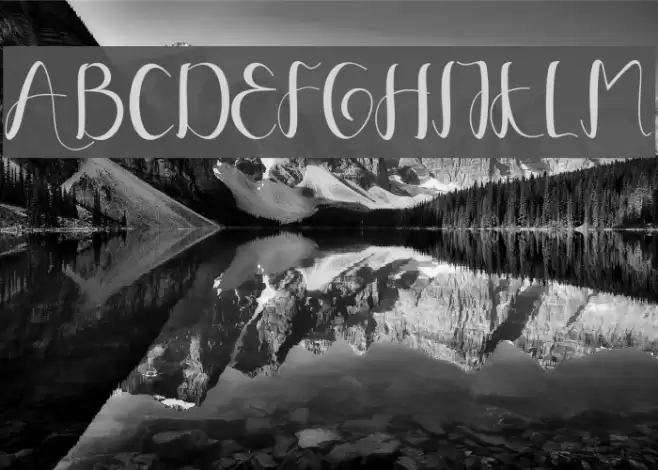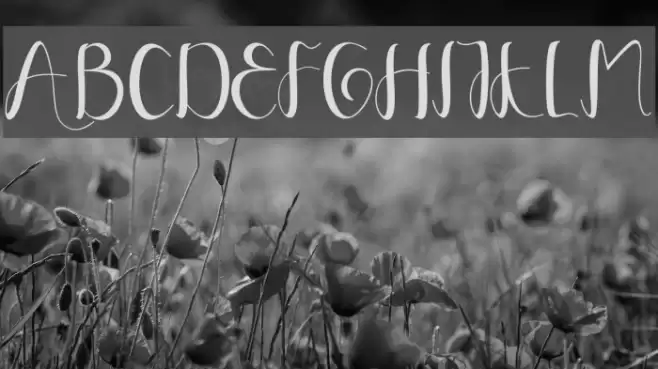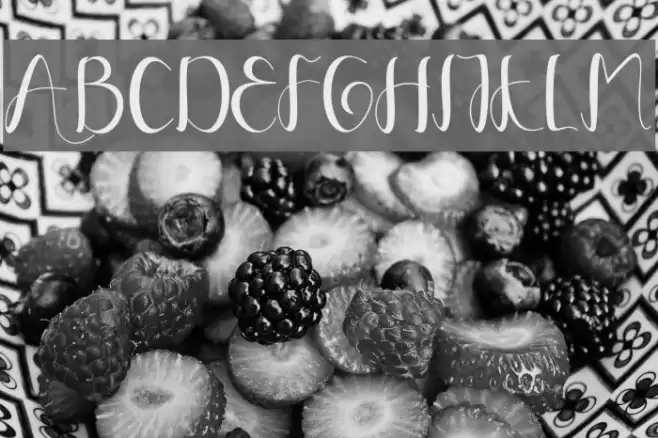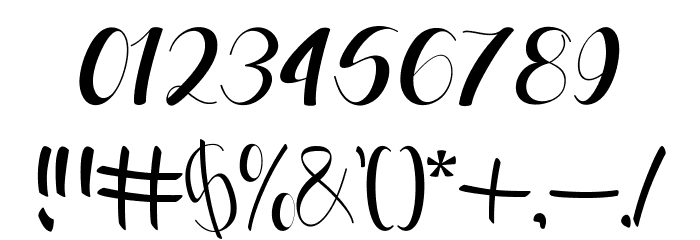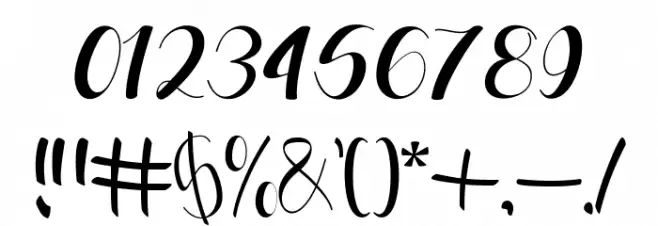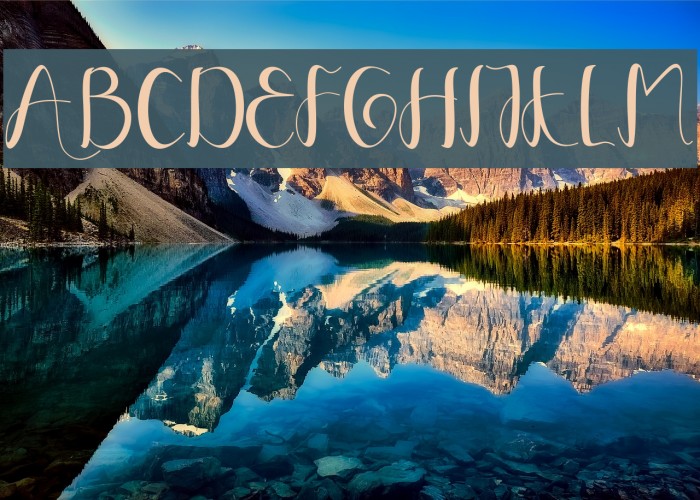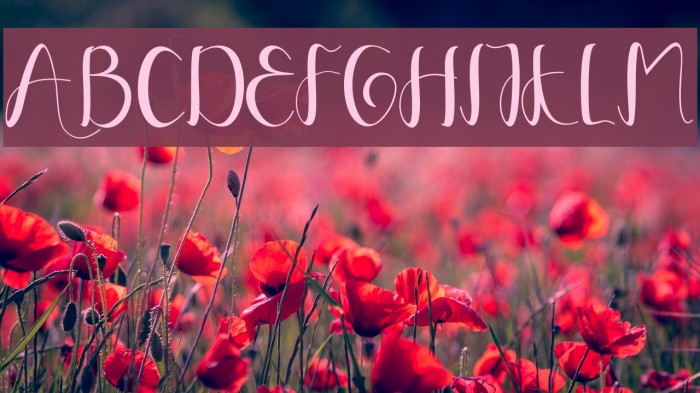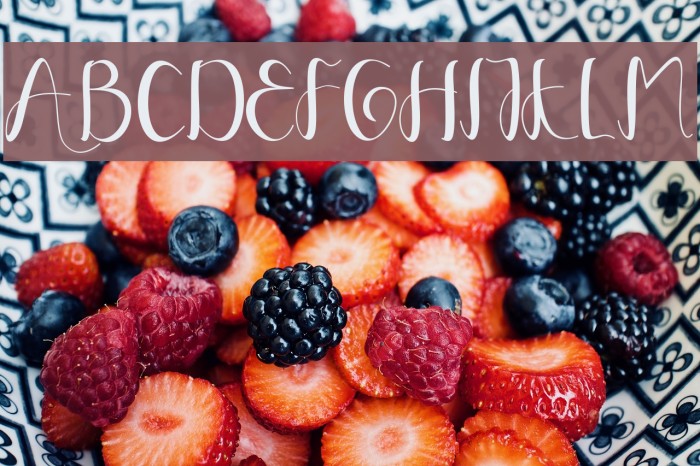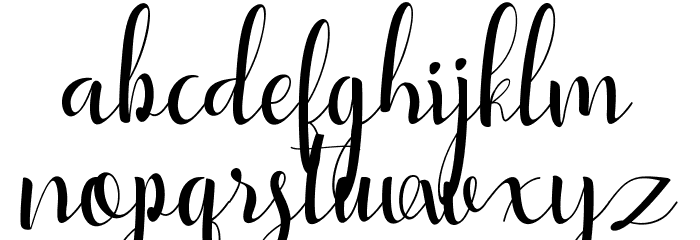
YullisaScript Font
YullisaScript Description
This elegant script font features a graceful and flowing design, characterized by its fluid, cursive strokes and delicate loops. The uppercase letters exhibit a sophisticated flair with extended ascenders and descenders, while the lowercase letters maintain a harmonious balance with their smooth curves. The numerals are stylishly integrated, complementing the overall aesthetic. Special characters are thoughtfully crafted, adding a touch of refinement. This font exudes a sense of elegance and charm, making it ideal for projects that require a personal and artistic touch.
A graceful and flowing script font with elegant cursive strokes from Uncategorized fonts.
- Proposed Projects: Ideal for wedding invitations, greeting cards, branding, and elegant packaging.
- Overall Style: Elegant
- Use Case: Logos, Invitations, Decorative text